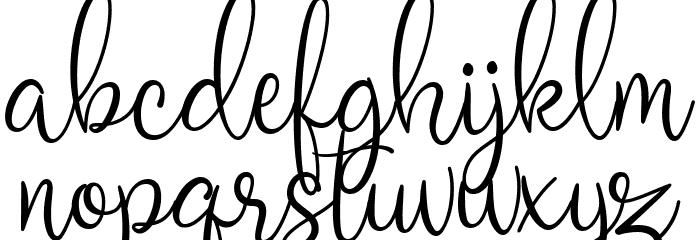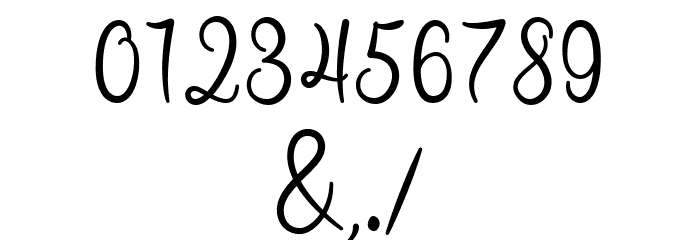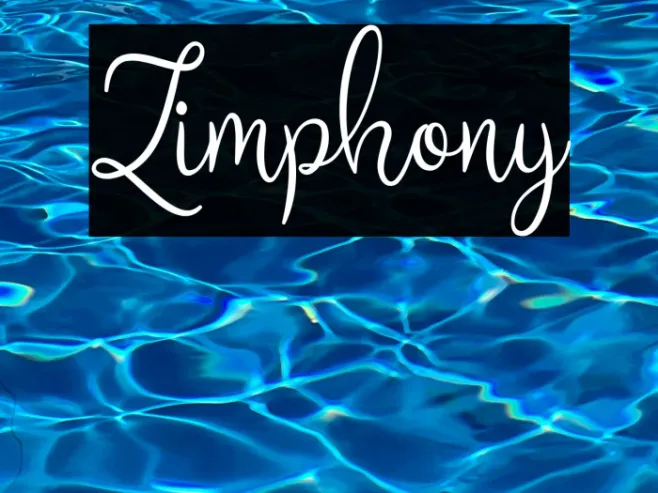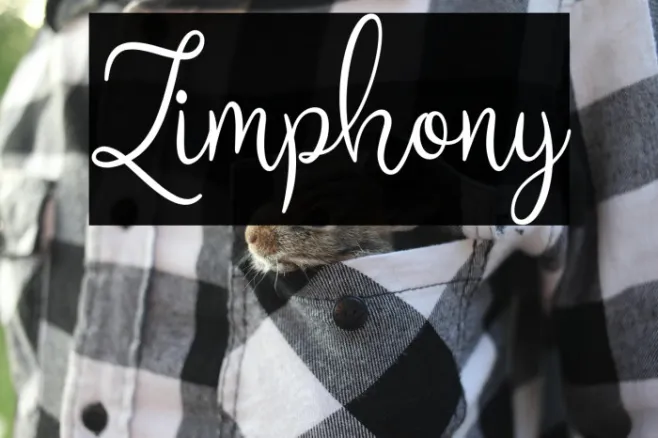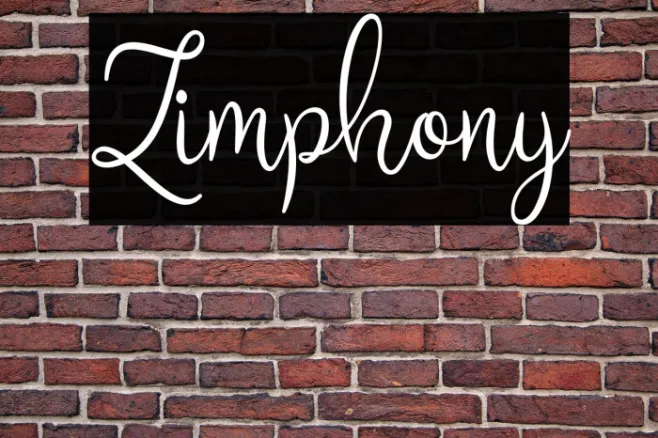
Zimphony Font
This font features a whimsical and flowing script style, characterized by its elegant curves and loops. The uppercase letters are tall and slender, with a playful yet sophisticated appearance. The lowercase letters maintain a consistent flow, enhancing readability while preserving the artistic flair. The numerals and special characters are designed to complement the overall style, ensuring a cohesive look across all text elements. This font's unique charm makes it suitable for creative and expressive projects.
A whimsical and flowing script font with elegant curves.
- Proposed Projects: Ideal for wedding invitations, greeting cards, branding, and artistic projects requiring a personal touch.
- Use Case: Logos, Invitations, Artistic projects